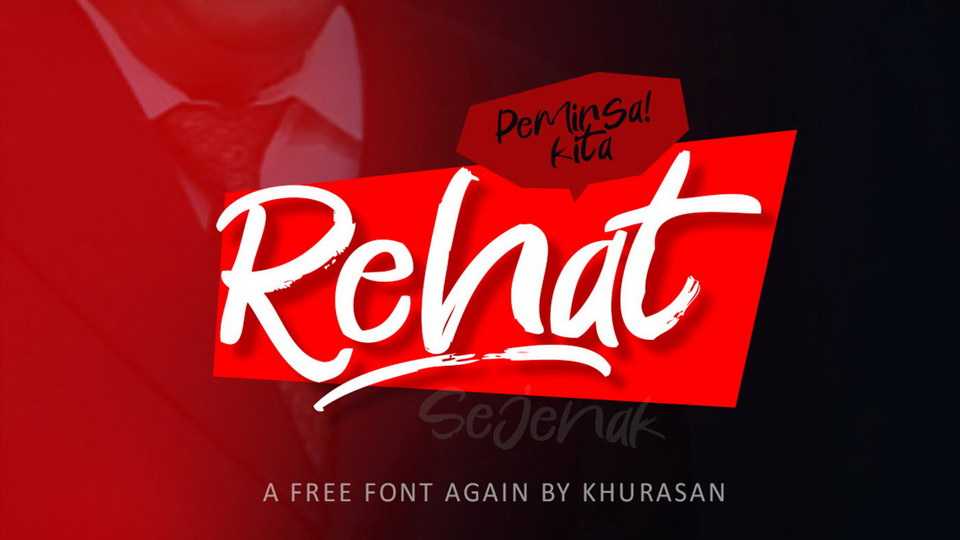
Download Rehat font, a bold hand painted brush typeface with a natural rough texture. Rehat is perfect for posters and prints, any punk/grunge/urban themed graphics.